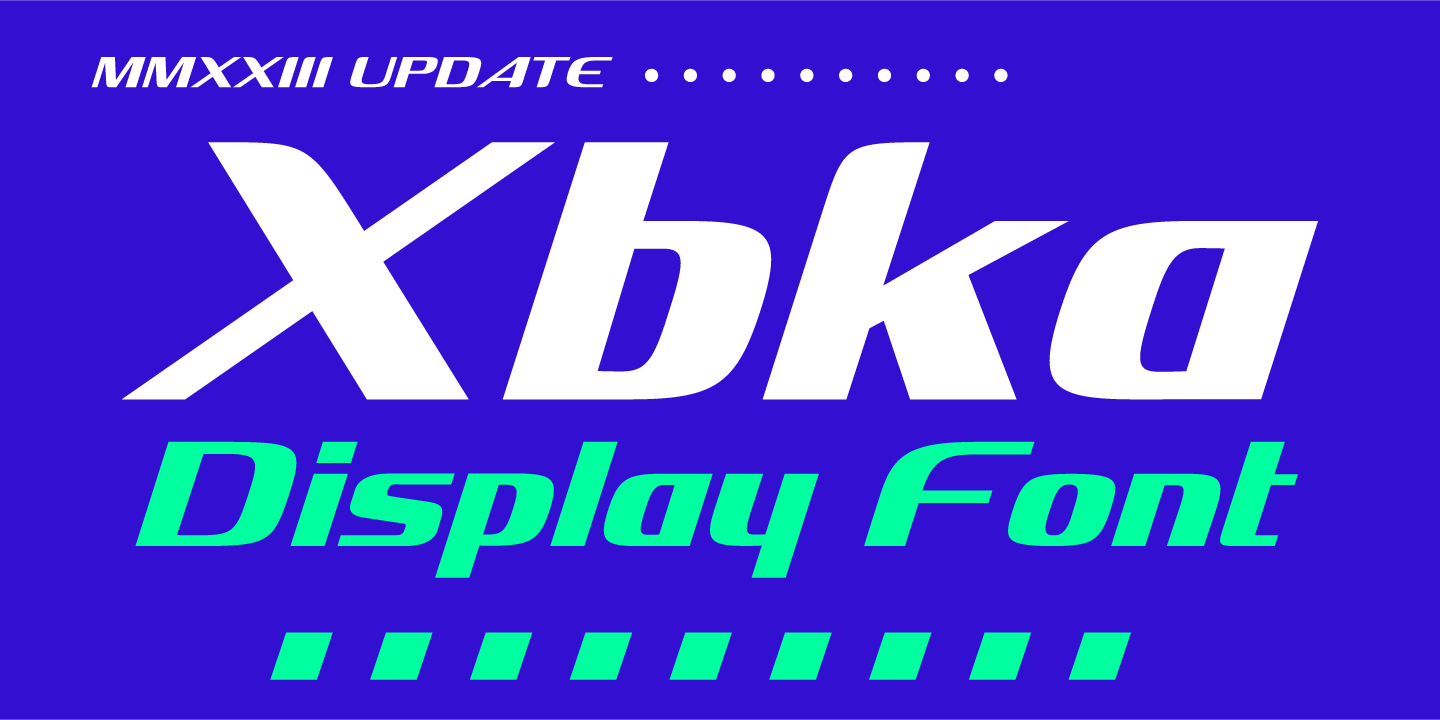
Xbka Font is ideal for experimental design projects including avant-garde art galleries, cutting-edge design studios, innovative tech companies, futuristic branding campaigns, experimental music labels, digital art exhibitions, progressive creative agencies, and boundary-pushing marketing materials. This distinctive typeface works perfectly for modern art museums, experimental theater productions, innovative software companies, contemporary fashion brands, and projects that celebrate creative innovation and forward-thinking design philosophy.
What makes Xbka Font exciting is its experimental innovative character that perfectly captures the essence of creative experimentation and design evolution. The font features unique letterforms with unconventional styling that reflects the pioneering spirit and artistic boldness of experimental design movements. Its innovative design elements embody the spirit of creative exploration and artistic progress, making it perfect for projects that need to convey innovation, creativity, and connection to experimental art culture. The carefully crafted experimental proportions create an atmosphere of artistic sophistication and innovative authenticity.
Xbka Font comes in multiple family variations including experimental, innovative, creative, and progressive styles. Each weight maintains the distinctive avant-garde character while offering different levels of experimental intensity and innovative presence. The font family includes creative alternates, experimental ligatures, and innovative variations that provide designers with comprehensive options for creating truly unique and authentically experimental typographic compositions that celebrate artistic innovation.
Whether you're designing experimental branding, creating innovative marketing materials, or developing avant-garde promotional graphics, Xbka Font Free Download provides the perfect typographic foundation for projects that celebrate creative excellence and experimental sophistication. This remarkable typeface transforms ordinary text into compelling expressions of artistic wisdom and innovative energy. Download this experimental font today and innovate your design projects with the creative authenticity and experimental refinement that captures the essential spirit of avant-garde art and progressive design thinking.